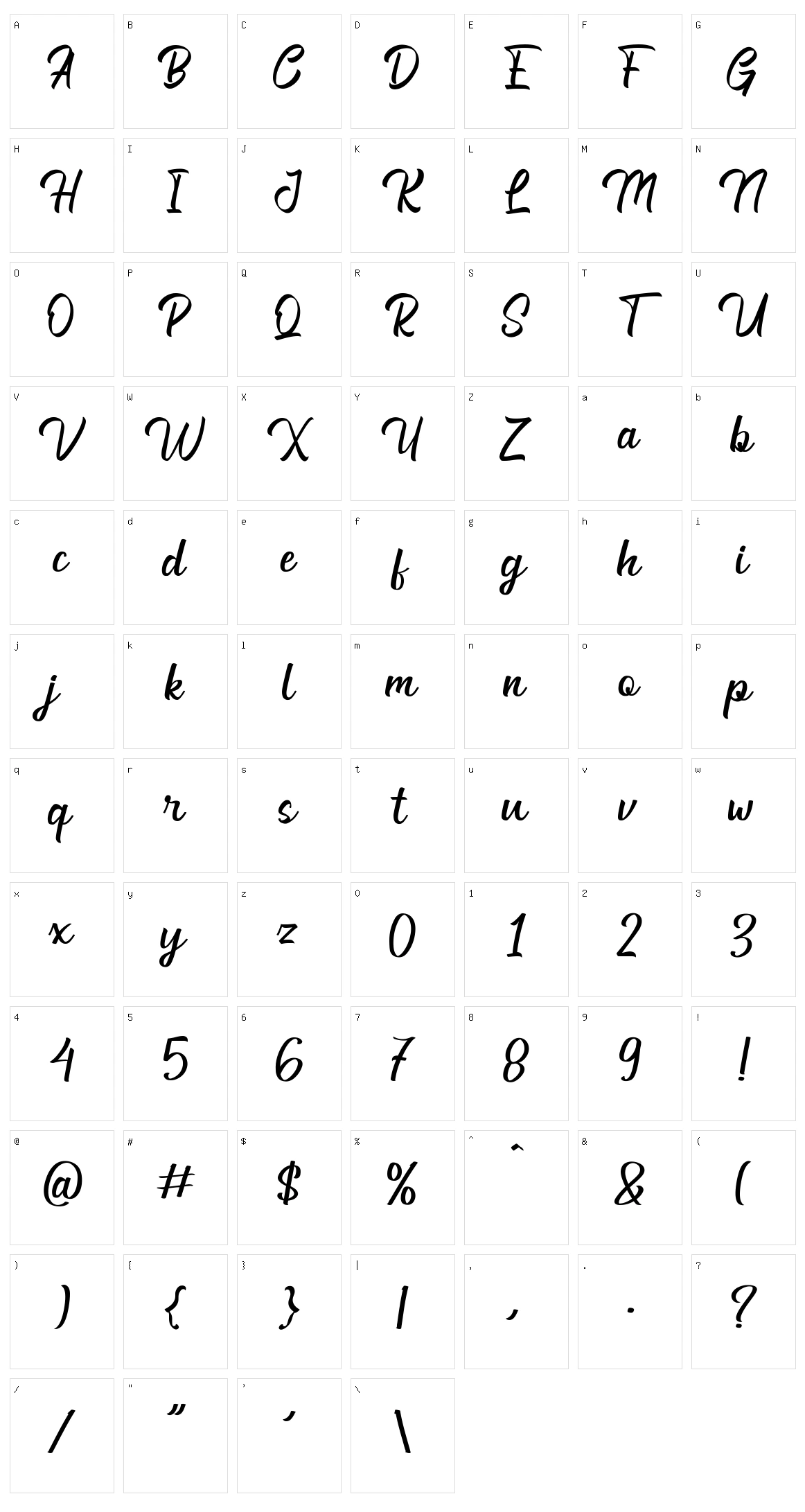
The free font Generation is carefully designed by Rantautype, showcasing a thoughtful balance of creativity and usability and falls under the Old-School font style. When you download the ZIP file, it contains only 32.7 KB of font files, making it lightweight and quick to download. Please review the license details below to understand permitted usage and distribution rights. If license information is not available, we recommend using this font for personal projects only or contacting the author directly for commercial usage permissions.